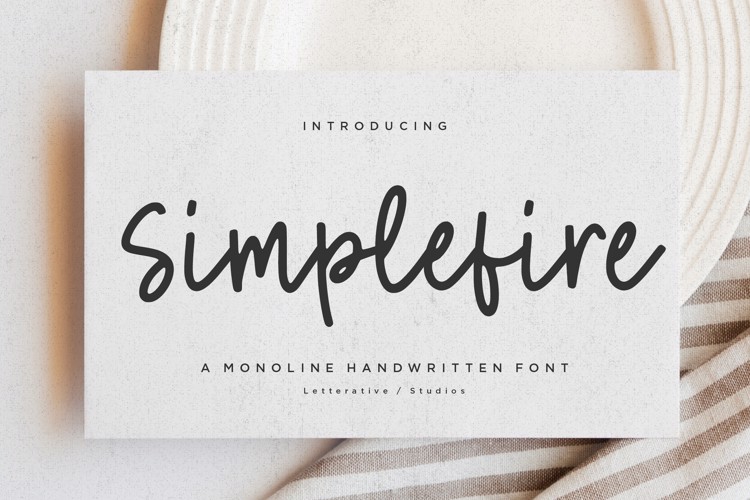
Simplefire Font
Introducing by Letterative Studio : Simplefire Font
Simplefire is a Monoline Handwritten Font
Simplefire is a Monoline Handwritten font. Simplefire is a flowing handwritten font, described by an elegant touch, perfect for your favorite projects. Fall in love with its incredibly distinct and timeless style and use it to create spectacular designs!